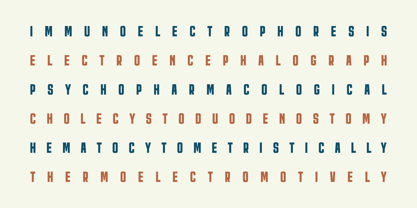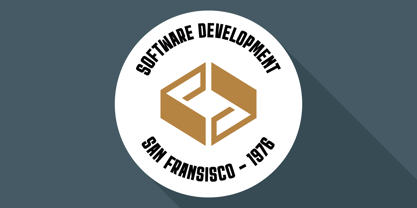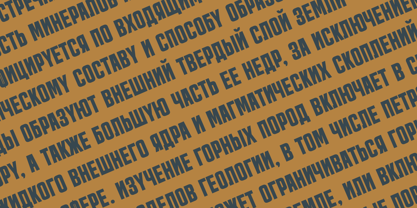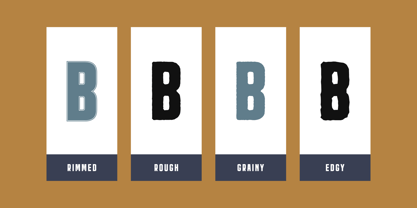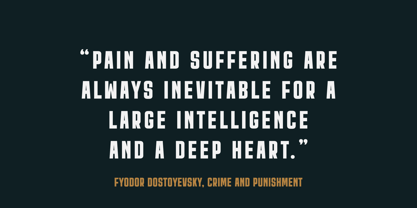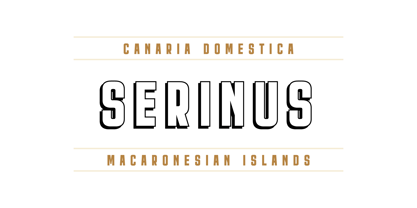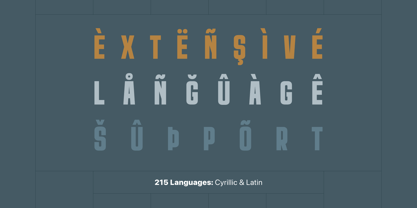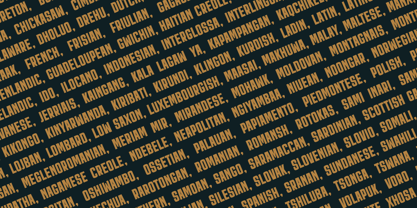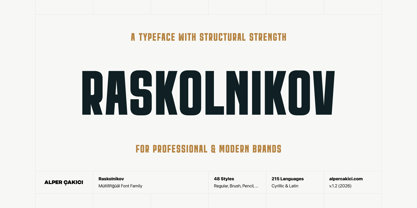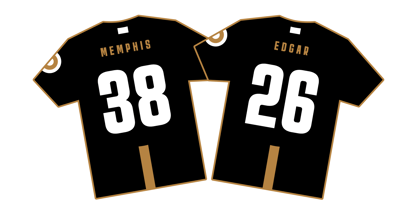
Raskolnikov is a commanding sans serif typeface family built for impact, clarity, and versatility. Inspired by classic poster lettering and contemporary display typography, it features tall proportions, clean construction, and strong geometric balance that make headlines, branding, packaging, editorial layouts, sports graphics, and advertising stand out with confidence.
The family includes 48 styles, ranging from the clean Regular and Italic designs to a wide selection of expressive variations such as Outline, Inline, Shadow, Rimmed, Traced, Sketchy, Brush, Chalk, Pencil, Aged, Dry, Edgy, Grainy, Gritty, Hazy, Noise, Old, Rough, Rusty, and Worn. Additional combinations including Inline Shadow, Rimmed Shadow, and Traced Shadow styles provide even greater creative flexibility for distinctive display work.
Raskolnikov supports both Latin and Cyrillic alphabets, covering 215 languages and making it suitable for international design projects. With a glyph set of 602 characters, the family delivers broad multilingual support while maintaining a strong and consistent visual identity across all styles.
Whether used for bold headlines, logo design, posters, merchandise, packaging, social media graphics, esports branding, apparel, or editorial design, Raskolnikov delivers a powerful visual presence while offering extensive creative possibilities through its diverse stylistic variations.
Features:
• 48 fonts
• Latin & Cyrillic support
• 215 language support
• 602 glyphs
• Regular & Italic styles
• Outline, Inline, Shadow, Rimmed, and Traced variants
• Brush, Chalk, Pencil, Sketchy, and handcrafted effects
• Aged, Grainy, Gritty, Rough, Rusty, Worn, and distressed textures
• Perfect for branding, headlines, posters, packaging, and display typography